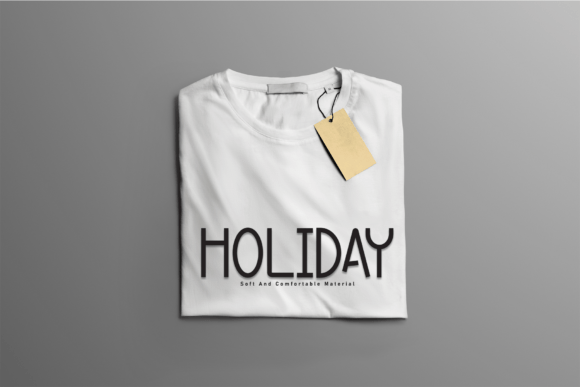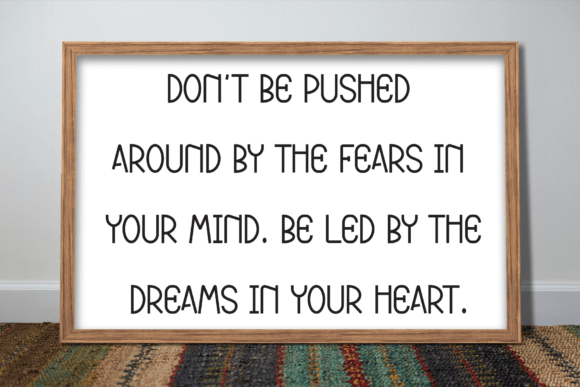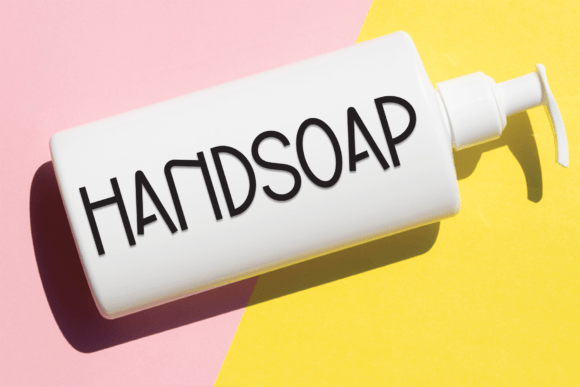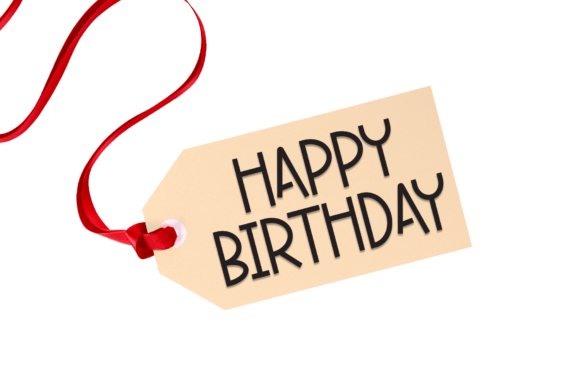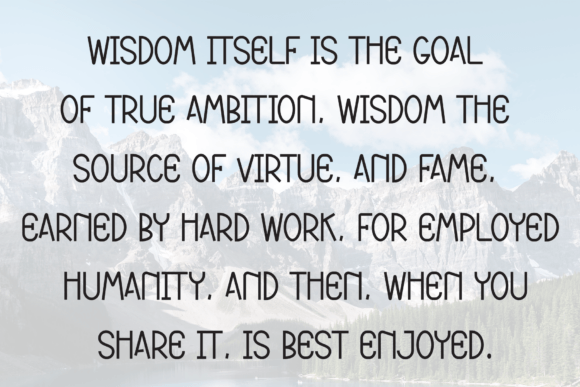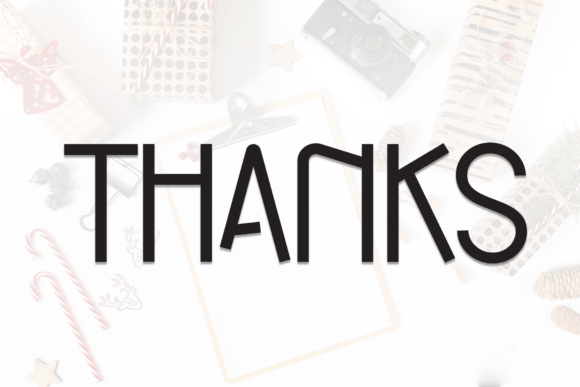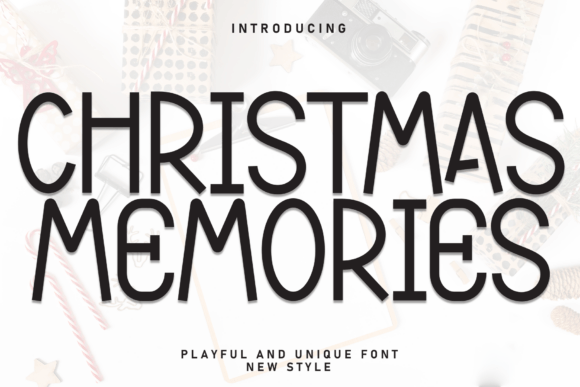
Christmas Memories Font: A Charming Handwritten Display Typeface to Spark Joy
Are you looking for a font that can add a touch of warmth and happiness to your designs? Look no further than the Christmas Memories Font, a charming and endearing handwritten display typeface that’s perfect for wedding invitations, card creations, and more. In this article, we’ll introduce you to this delightful font and explore its features, uses, and benefits.
A Captivating Blend of Sweet and Friendly
The Christmas Memories Font is a captivating blend of sweet and friendly that sparks joy. Its lovingly crafted design instantly brightens up any design, making it perfect for designers and crafters who want to add a playful nuance to their artistic endeavors. Whether you’re creating wedding invitations, greeting cards, or social media graphics, this font is sure to bring a smile to your audience’s faces.
Perfect for Wedding Invitations and Card Creations
One of the standout features of the Christmas Memories Font is its suitability for wedding invitations and card creations. Its elegant and whimsical design makes it perfect for couples who want to add a touch of personality to their wedding stationery. Similarly, crafters who create handmade cards and gift tags will love the font’s playful and friendly vibe.
A Font that Dances Off the Page
The Christmas Memories Font literally dances off the page, infusing every word with love, warmth, and happiness. Its handwritten design gives it a personal and intimate feel, making it perfect for designs that require a touch of personality. Whether you’re creating a festive holiday graphic or a heartfelt wedding invitation, this font is sure to bring your message to life.
Adding a Playful Nuance to Your Designs
The Christmas Memories Font adds a playful nuance to your designs, inviting a touch of fun and whimsy to your artistic endeavors. Its sweet and friendly design makes it perfect for designers and crafters who want to create designs that are both elegant and playful. Whether you’re creating a children’s book, a party invitation, or a social media graphic, this font is sure to add a touch of magic to your design.
Key Features of the Christmas Memories Font
• Handwritten design: The Christmas Memories Font features a beautiful handwritten design that’s perfect for adding a personal touch to your designs.
• Sweet and friendly vibe: The font’s sweet and friendly design makes it perfect for wedding invitations, card creations, and other designs that require a touch of warmth and happiness.
• Playful nuance: The font’s playful design adds a touch of fun and whimsy to your designs, making it perfect for designers and crafters who want to create elegant and playful designs.
• Elegant and whimsical: The Christmas Memories Font is both elegant and whimsical, making it perfect for designs that require a touch of sophistication and personality.
How to Use the Christmas Memories Font
The Christmas Memories Font is easy to use and can be incorporated into a variety of designs. Here are a few ideas to get you started:
• Wedding invitations: Use the Christmas Memories Font to create beautiful and elegant wedding invitations that set the tone for your special day.
• Card creations: Add a personal touch to your handmade cards and gift tags with the Christmas Memories Font.
• Social media graphics: Use the font to create festive and engaging social media graphics that are sure to bring a smile to your audience’s faces.
• Children’s books: The Christmas Memories Font is perfect for children’s books, adding a touch of whimsy and magic to your story.
In conclusion, the Christmas Memories Font is a charming and endearing handwritten display typeface that’s perfect for designers and crafters who want to add a touch of warmth and happiness to their designs. Its sweet and friendly design makes it perfect for wedding invitations, card creations, and other designs that require a touch of personality. With its elegant and whimsical design, this font is sure to bring joy and magic to your artistic endeavors.